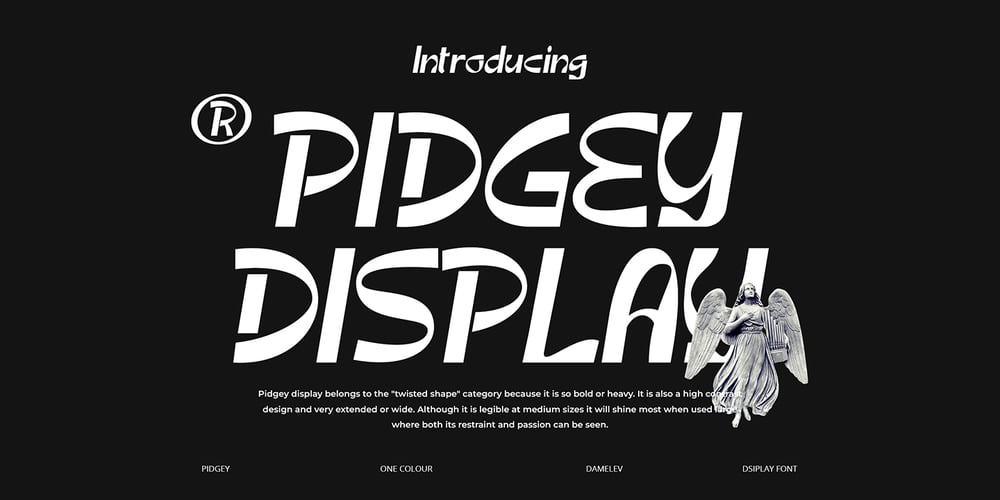
Pidgey Font Family was designed by Tanzil Adduha and published by Tanziladd. Pidgey contains 1 styles and family package options. Pidgey display belongs to the “twisted shape” category because it is so bold or heavy. It is also a high contrast design and very extended or wide. Although it is legible at medium sizes it will shine most when used large where both its restraint and passion can be seen.It works perfectly for creative project such as logo, T-shirt / apparel, badge, invitation, packaging,headline, poster, magazine, greeting card, and wedding invitation. You can access the open type features and multilingual on mostly Adobe programs, such as Adobe Indesign, Adobe Illustrator, Adobe photoshop. etc